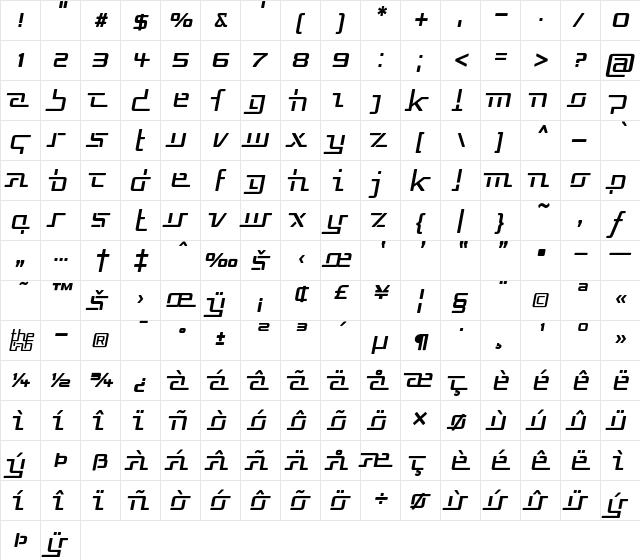
Republika V Italic
Design Context for Republika V Typeface
Republika V is a composed and adaptable typeface that performs quietly and consistently across a wide range of design contexts. The dynamic lean of this cut emphasises speed and emphasis in any layout.
Pro Tip: Try Republika V for annotation and caption copy alongside an upright companion — the contrast in angle creates a dynamic but ordered typographic system.